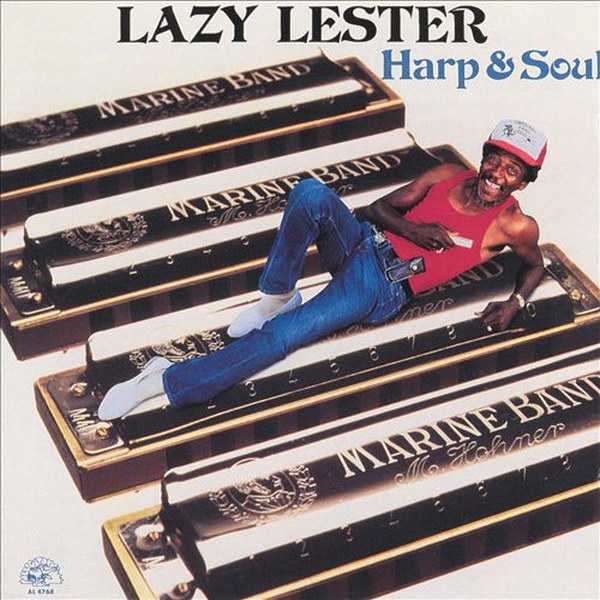
Harp & Soul Font
BluesHarp & Soul is an album by American blues musician Lazy Lester, released in 1988 via Alligator. The album features a mix of blues and R&B styles, with Lester's distinctive harmonica playing and soulful vocals from various artists.
Devinne, a display typeface created by the renowned Parisian type foundry Deberny & Peignot in the 1900s, is most likely the font that was used on the cover. You can view more details about the typeface here.